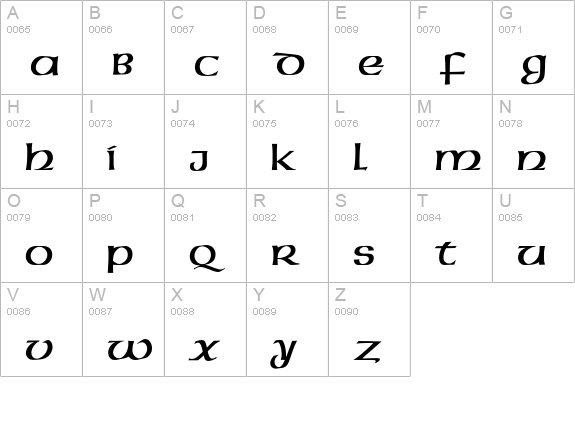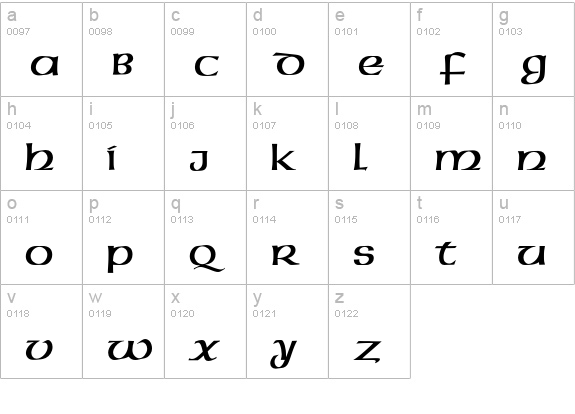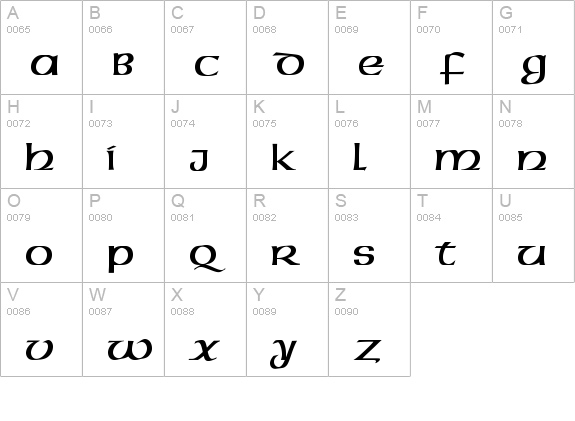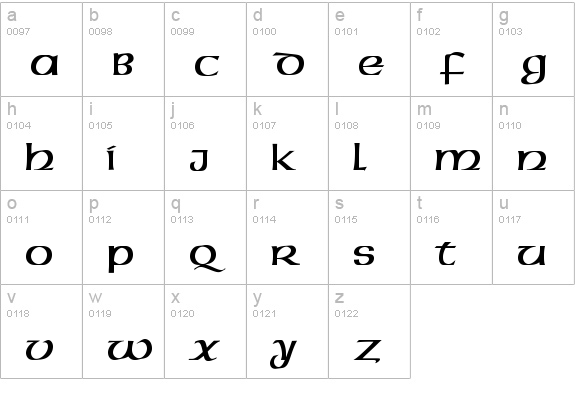
AmericanUncialEF Font Details
AmericanUncialEF is a charming and elegant font that captures the essence of traditional Celtic calligraphy with a modern twist. Its graceful curves and distinctive letterforms make it perfect for adding a touch of sophistication to your designs. This versatile font is ideal for a wide range of projects, from invitations and greeting cards to branding and packaging. The best part? AmericanUncialEF is available for free download at FontsMarket.com, making it easily accessible to anyone looking to elevate their typography game without breaking the bank. So why wait? Download AmericanUncialEF today and let your creativity soar!